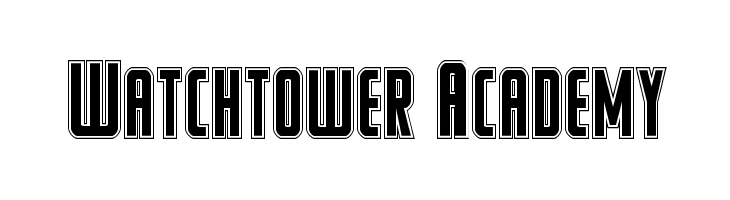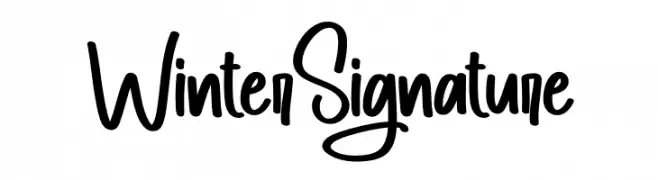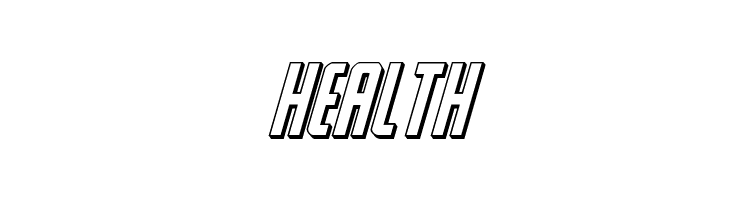
Playful, rounded sans-serif with a handwritten style.
A whimsical, flowing handwritten font with elegant strokes.
A playful, handwritten cursive font with elegant loops and curves.
A playful, bold font with snow-like dots, perfect for festive designs.
A modern, handwritten font with fluid, dynamic strokes.
A playful, rounded font with smooth curves and a friendly appearance.
A bold, dynamic script font with fluid, connected letterforms.
A graceful monoline script font with smooth, flowing lines and consistent stroke width.
A tall, narrow, and elegant font with consistent strokes and a modern aesthetic.
A tall, slender, and elegant font with a whimsical touch.
A bold, condensed font with a distressed, vintage texture.
A bold, distressed font with a rugged, textured appearance.
An ornate, decorative font with each letter encased in a winter-themed wreath.
Playful handwritten font with a whimsical style.
A whimsical and elegant script font with playful loops and swirls.
A bold, rounded font with a playful and friendly style.
Playful handwritten script with tall uppercase and rounded lowercase letters.
A playful, bold handwritten font with a whimsical and informal style.
A bold, brush-style font with dynamic, handwritten characteristics.
A bold, handwritten font with a playful and casual style.
A bold, angular font with a modern and dynamic style.
A bold, 3D font with angular shapes and a shadow effect for a striking appearance.
A bold, 3D italic font with sharp, angular edges and a dynamic style.
A bold, condensed font with sharp, angular edges and a modern, geometric style.
A bold, angular, and condensed italic font with a modern, edgy style.
A bold, angular font with a modern, geometric style.
A bold, angular, and expanded italic font with a futuristic style.
A bold, angular italic font with a modern, edgy style.
A bold, angular font with a leftward slant and strong geometric shapes.
A bold, angular outline font with a futuristic and edgy design.
A bold, angular outline font with an italic slant, ideal for dynamic and impactful designs.
A playful handwritten font with smooth, flowing strokes and a casual vibe.
A delicate, handwritten-style font with thin, flowing lines.
A lively, expressive handwritten font with fluid, dynamic strokes.
Playful handwritten font with a modern style.